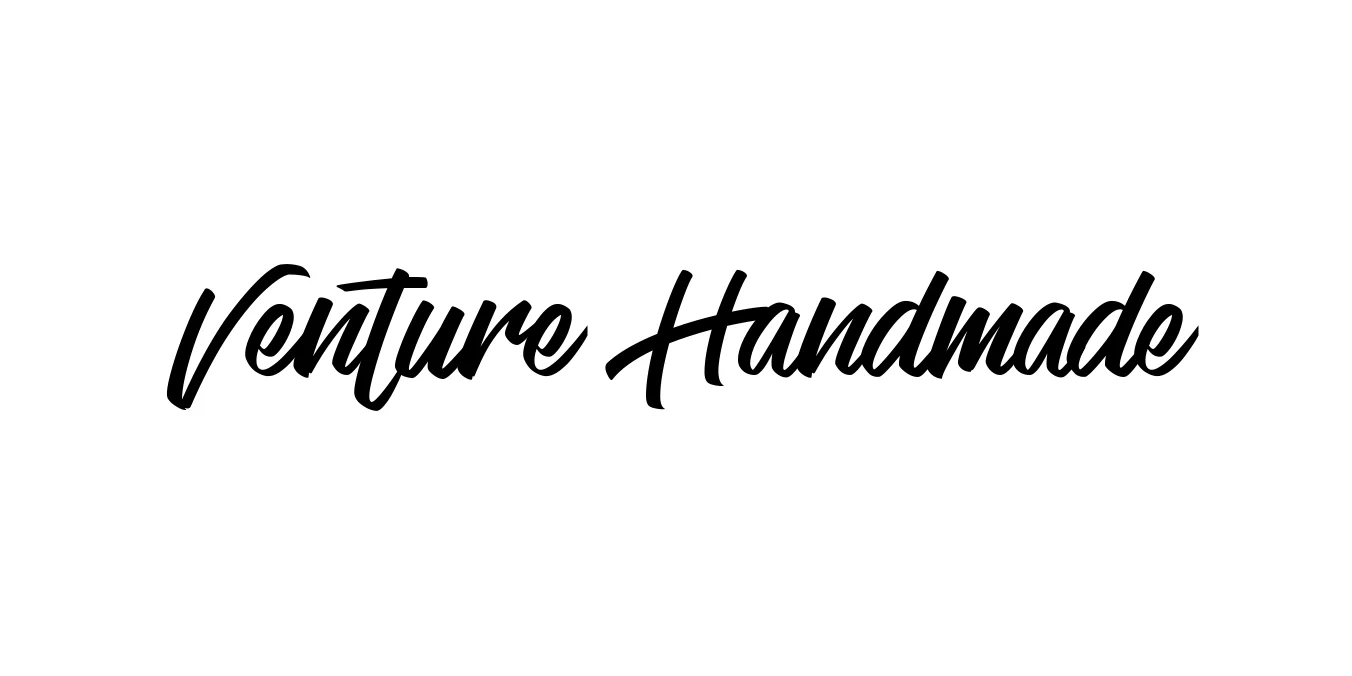
Venture Handmade
Designed by Vunira Design
Venture Handmade is a distinctively organic script typeface that captures the essence of natural calligraphy through its fluid, rhythmic strokes. The font features slightly distressed edges, giving it a rustic and authentic feel that stands out in a digital landscape. It is designed to bridge the gap between traditional handwriting and modern digital typography, providing a tactile quality to any creative layout.
This typeface is exceptionally versatile, making it a favorite for branding projects, outdoor-themed advertisements, and artisanal product packaging. With its comprehensive set of characters and natural ligatures, Venture Handmade ensures that text looks less like a font and more like a custom piece of lettering, adding a sophisticated yet approachable personality to your work.
Venture Handmade Best Uses
Ideal for creating unique, artisanal logos and identity systems.
Perfect for high-impact quotes and lifestyle content visuals.
Adds a personal, hand-crafted touch to wedding and event invitations.